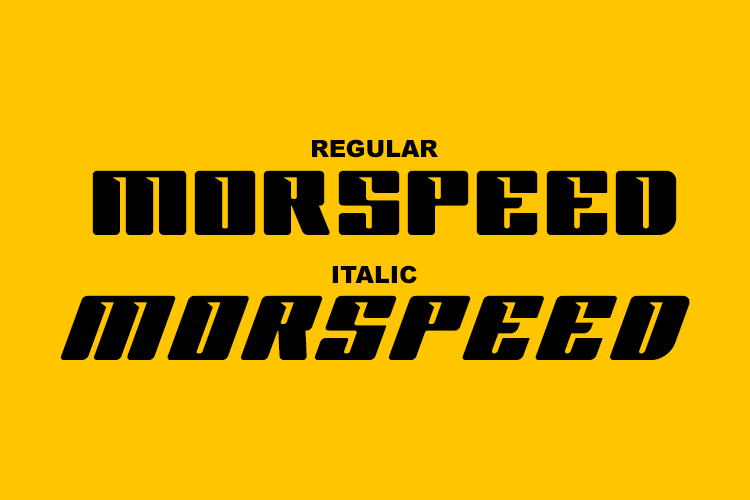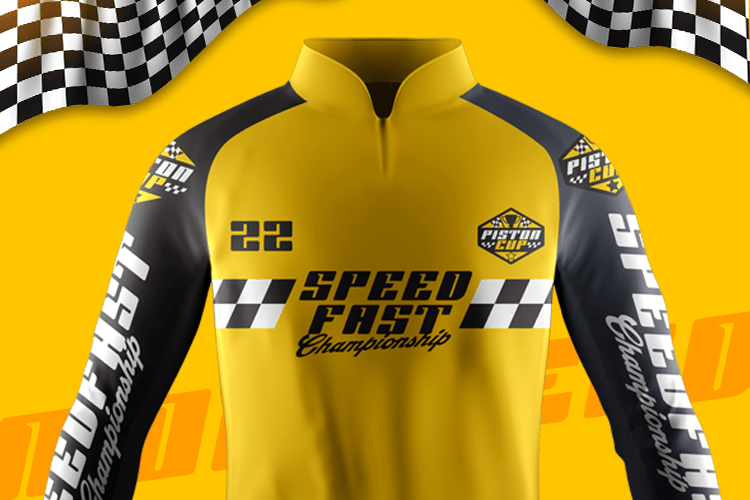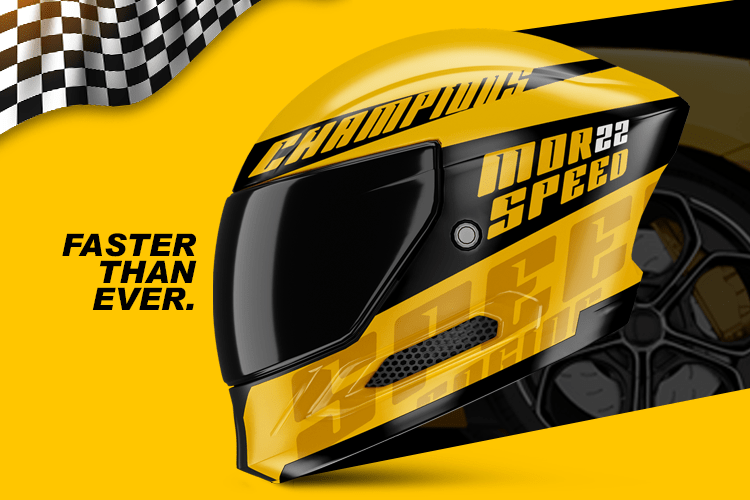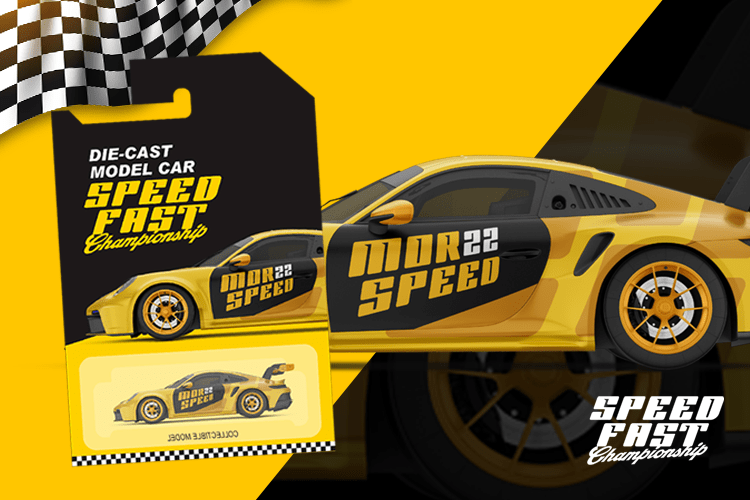
MORSPEED Display Font
This is Vintage font display. We bring vintage feel in design ,really match for artwork with racing themes, racing kit with vintage style.
include 2 style typeface :
- Regular
- Italic